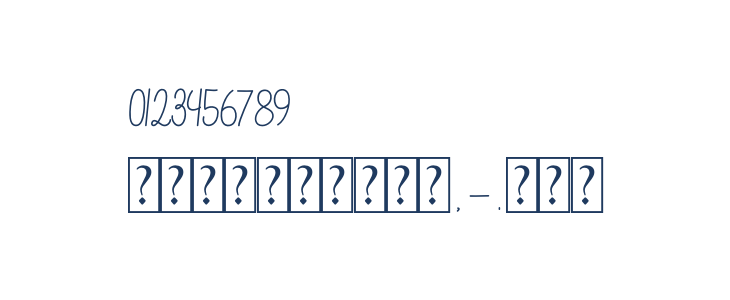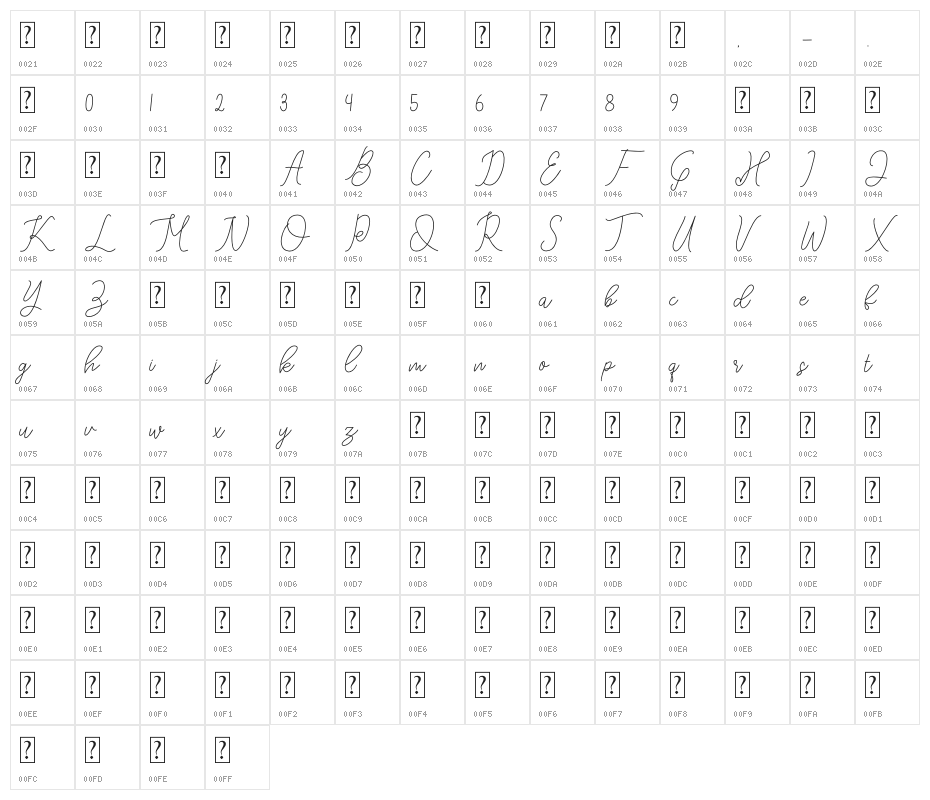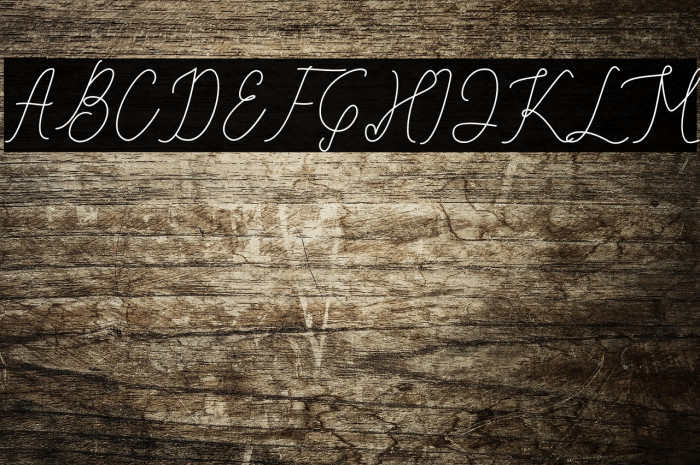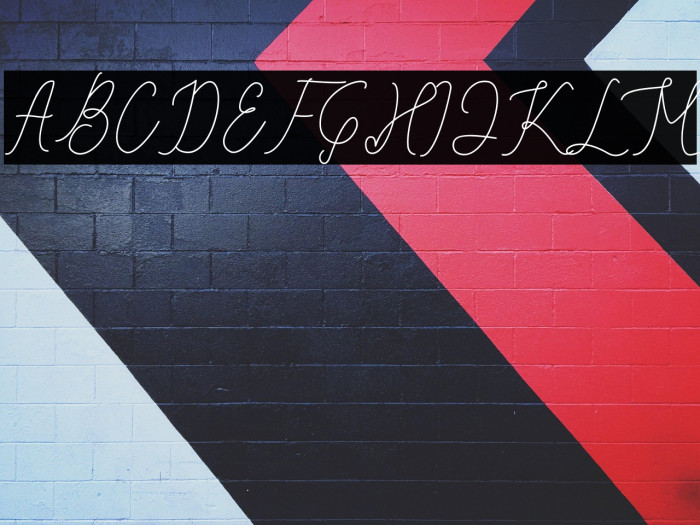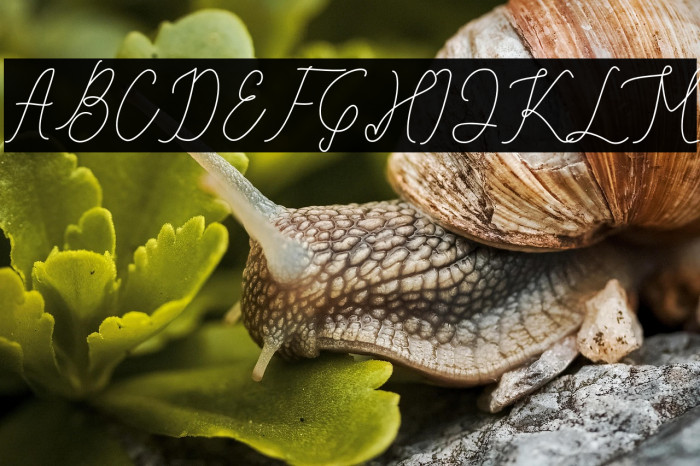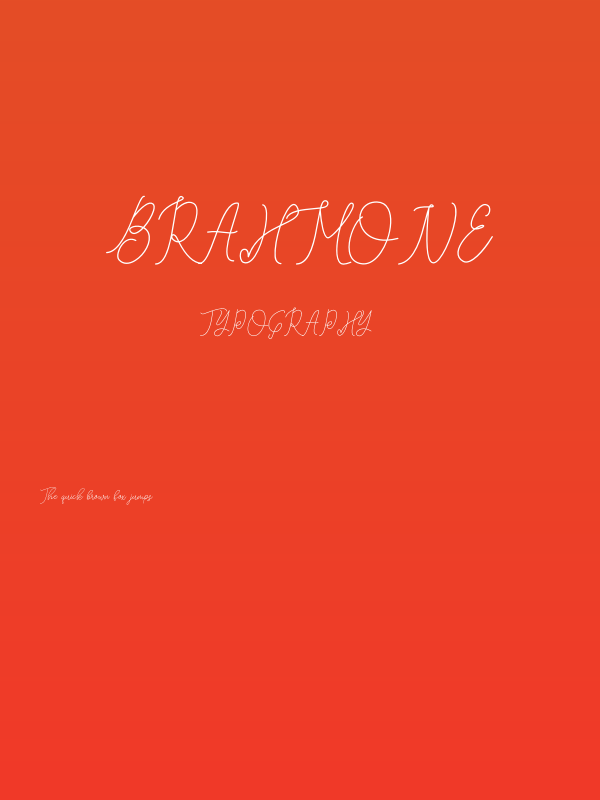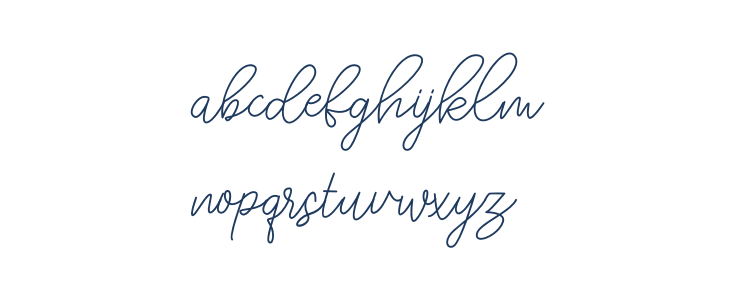
Brahmone Font
Brahmone Description
This font features an elegant and flowing script style, characterized by its smooth, continuous strokes and graceful curves. The uppercase letters exhibit a refined, sophisticated appearance with a slight slant, while the lowercase letters maintain a consistent, fluid motion that enhances readability. The numerals are designed with a similar elegance, ensuring a cohesive look across all characters. The font's delicate lines and balanced proportions make it suitable for projects that require a touch of class and sophistication.
| Overall Style | Elegant |
| Use Case | Headlines, Invitations, Branding |
| Proposed Projects | Ideal for wedding invitations, elegant branding, personal stationery, and upscale packaging. |